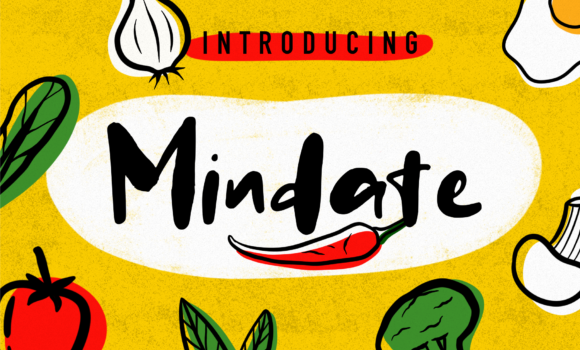
Mindate Font – Free Download Introduction to Mindate Font With its cute and organic handwritten style, Mindate is the perfect font for logos. 📸 Preview Gallery 4 images 📌 Product Name Mindate Font 👤 Author 24Design Studios 📂 Category Explore